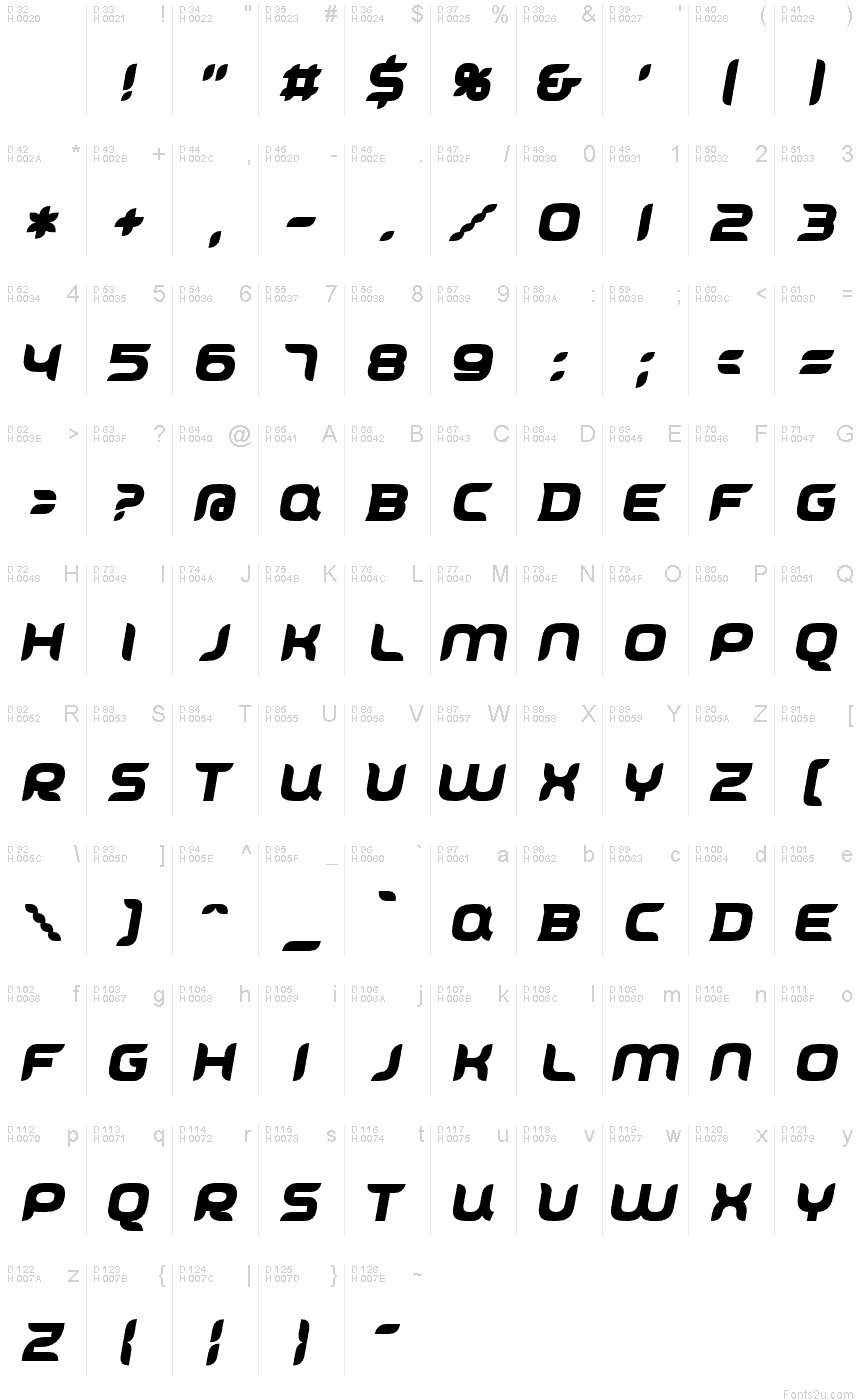
Cyrivendell by Ivan Apostolski is a free techno display font with broad, forward-leaning letters, a sleek racing profile, and a compact, tightly fitted rhythm. Rounded curves meet abrupt cuts, with narrow openings throughout.
Motorsport, science fiction, and competitive gaming provide its clearest territory, making the lettering suitable for team branding, event posters, and game title screens. It is especially convincing in automotive graphics, where the extended shapes and sharp interruptions can echo body panels, track markings, and sponsor decals.
Cyrivendell is a name combining Cyrillic and Rivendell, the fictional city from The Lord of the Rings.
The font supports the full Cyrillic character set for Serbian, Macedonian, Russian, Ukrainian, Bulgarian, and Belarusian. It also contains every European international character.